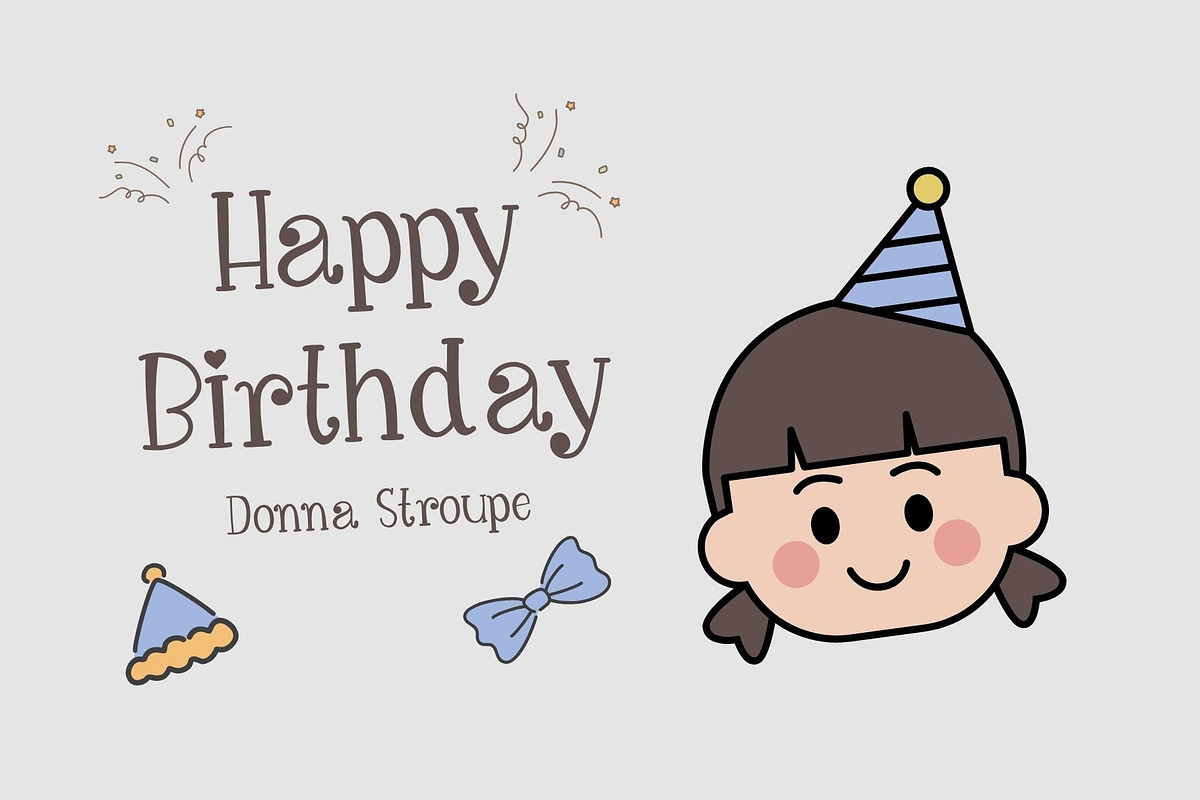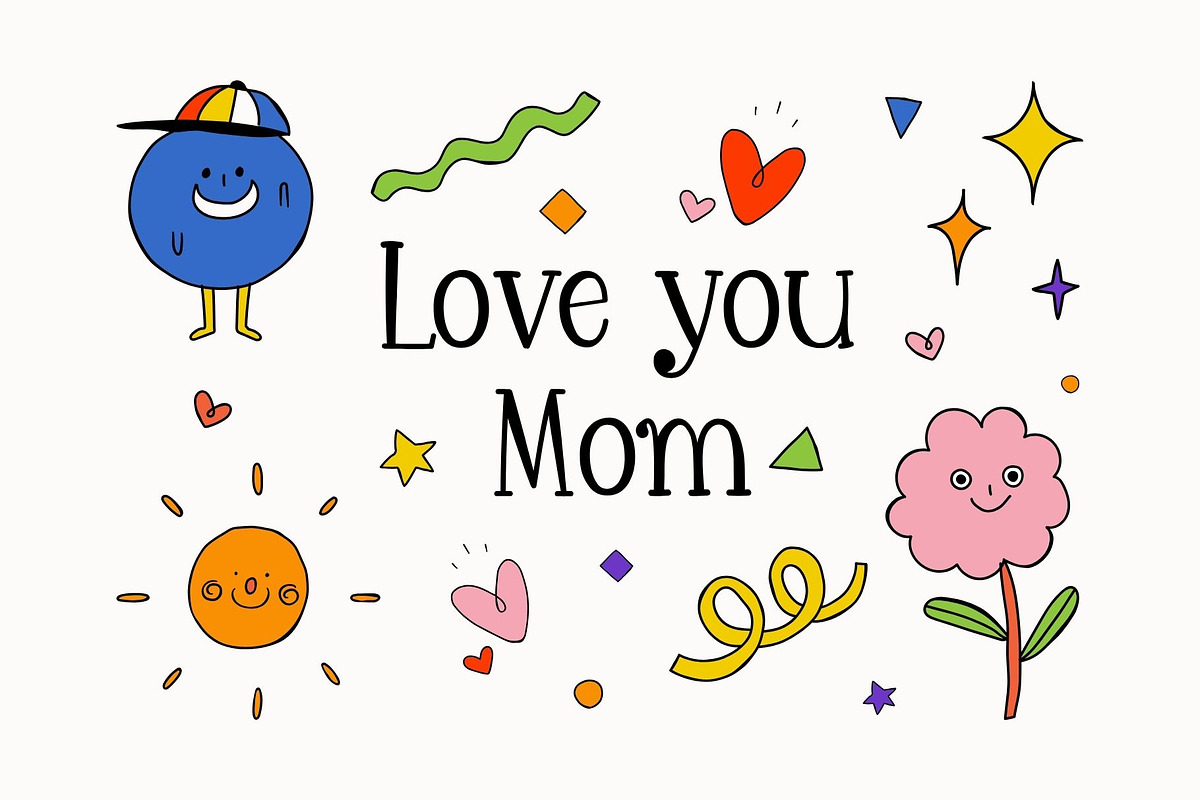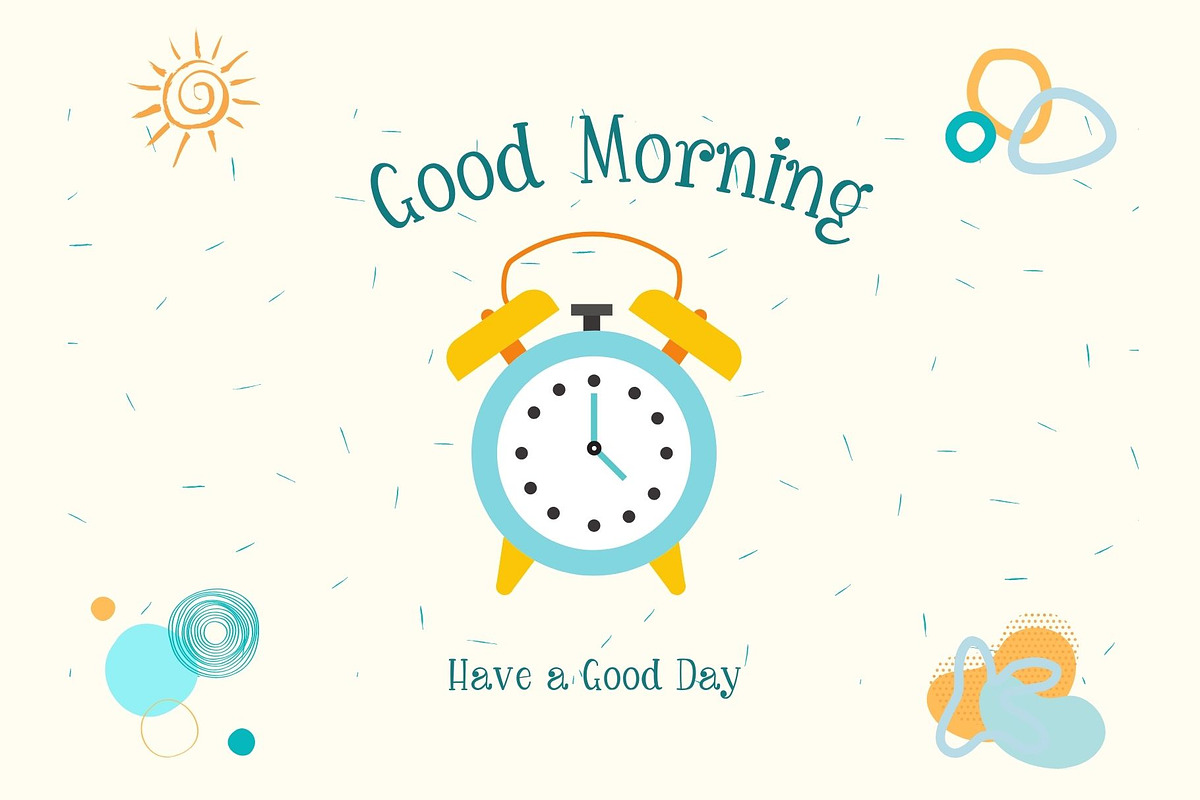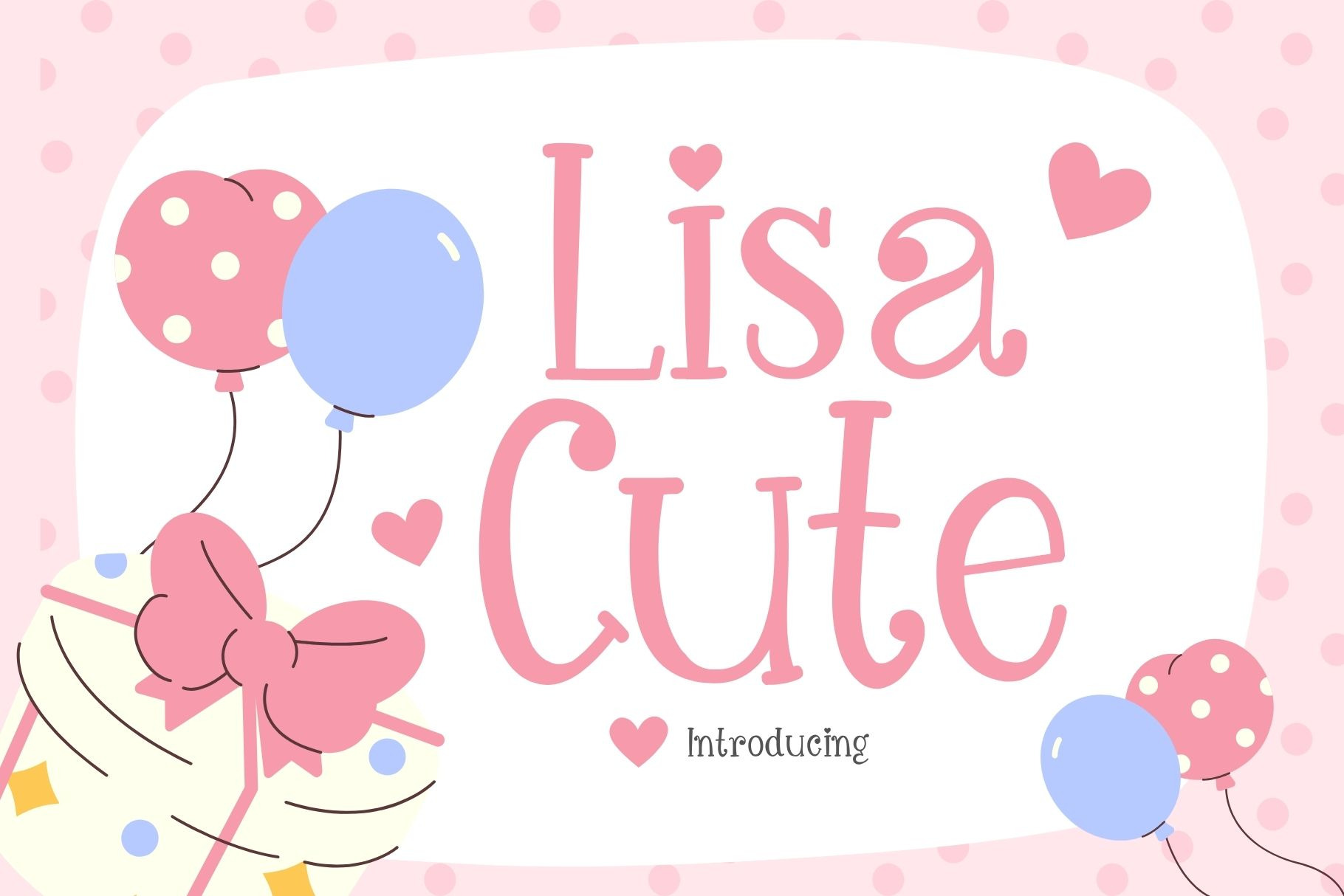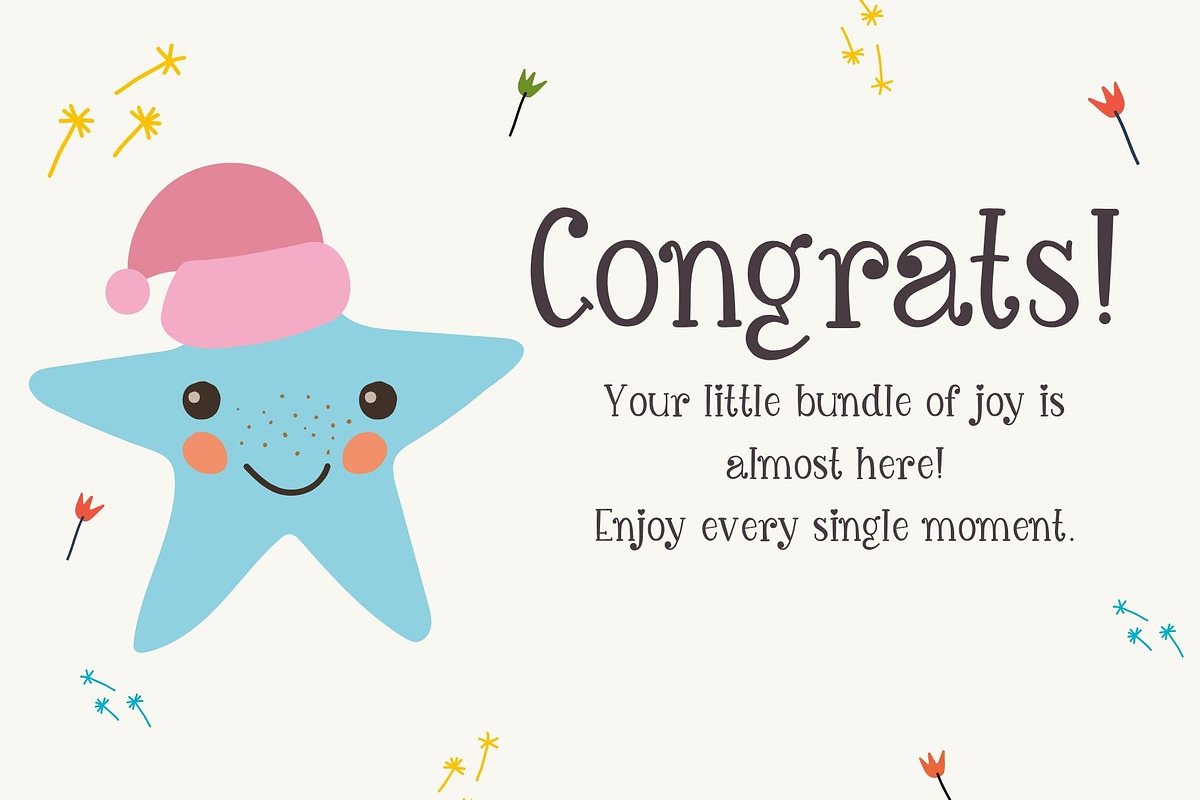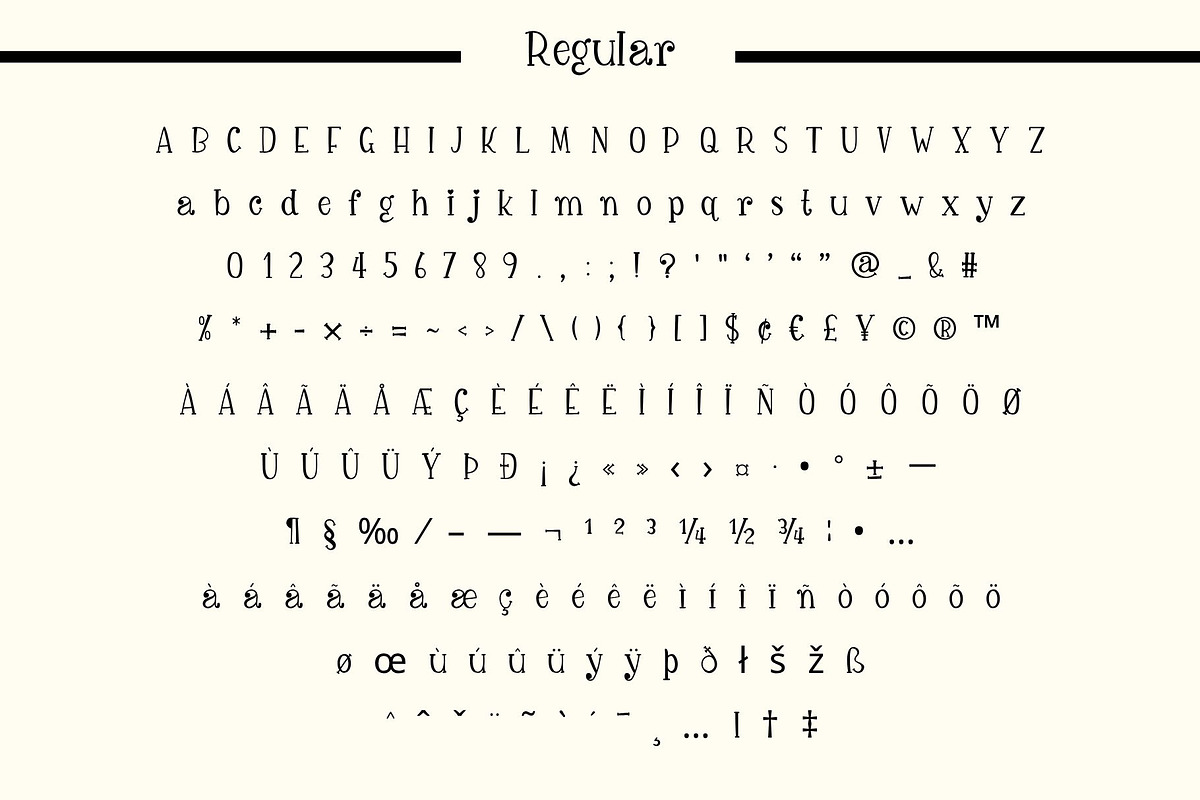
Lisa Cute Font
**_Lisa Cute is a cute and tall serif font. _**Expertly designed to make your creation look out of this world, this font will look gorgeous on a variety of ideas. This font is ideal for writing web designs, business cards, or pretty much anything else that requires a unique touch.